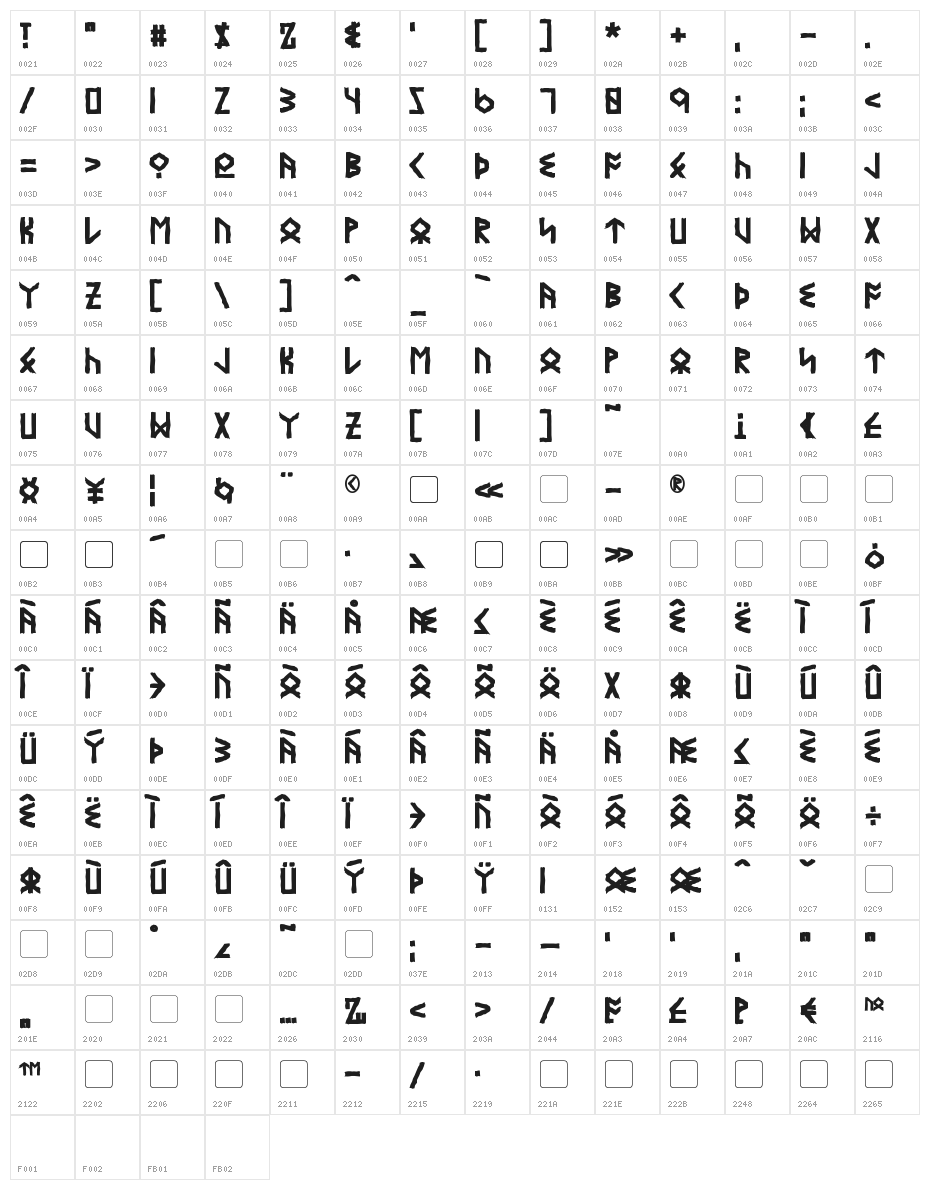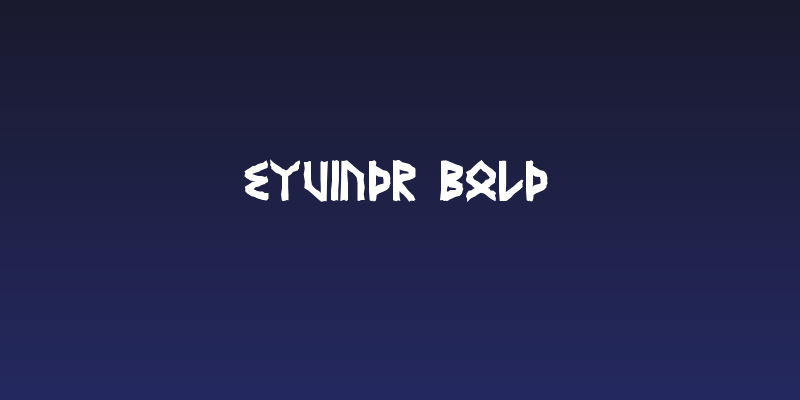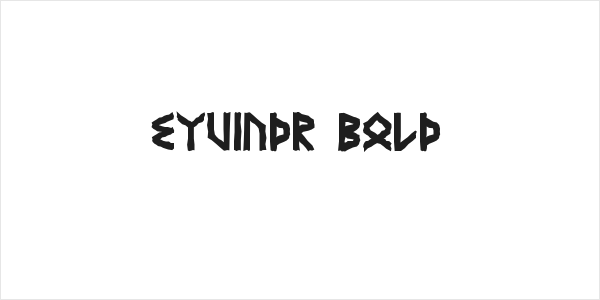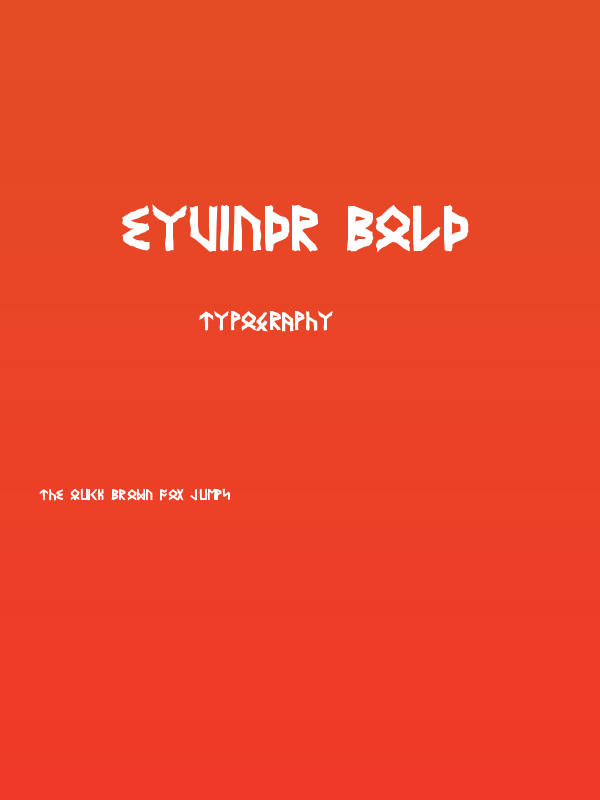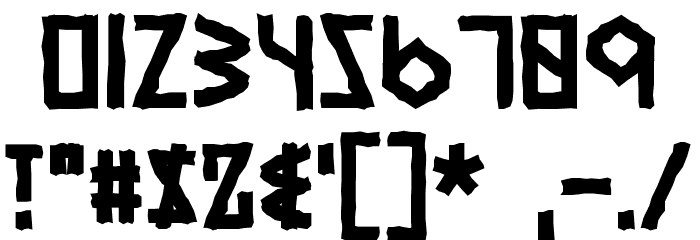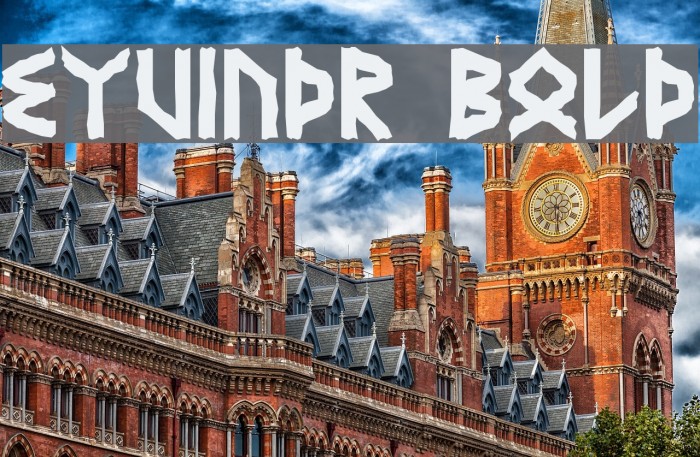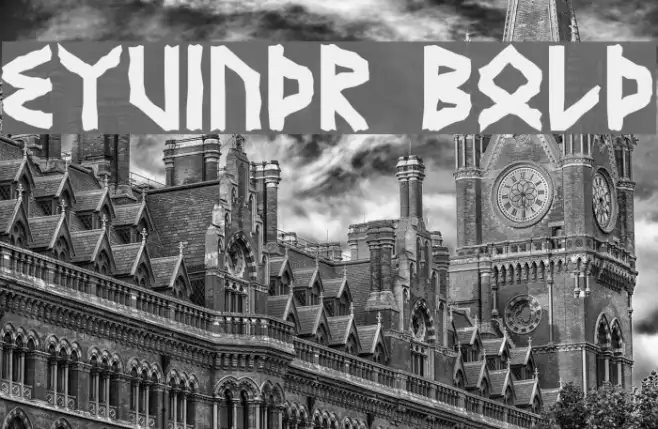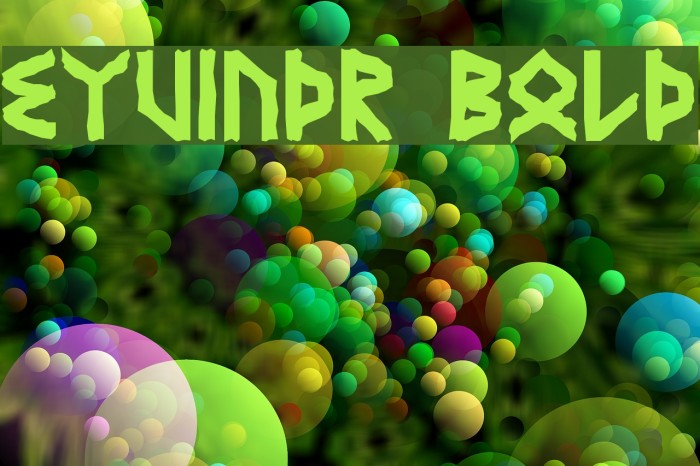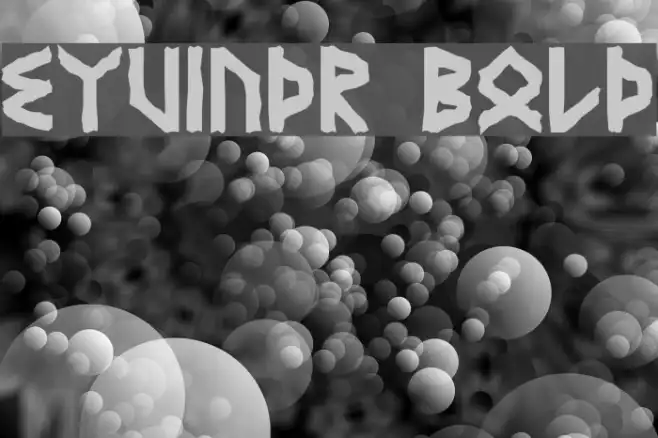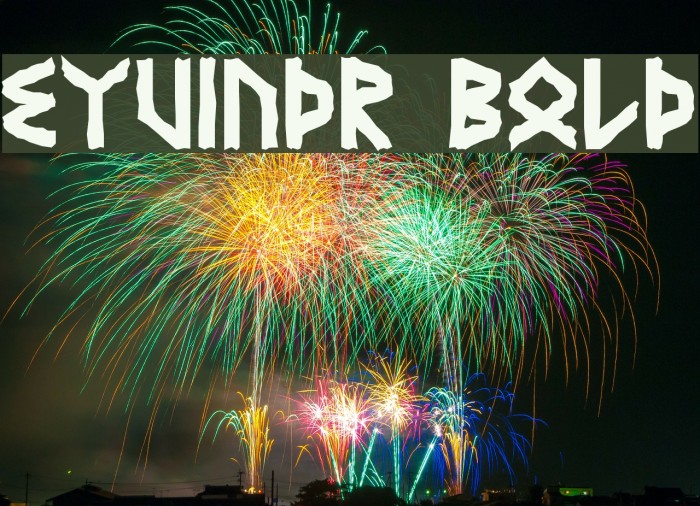
Eyvindr Bold Font
Eyvindr Bold Description
This font features a bold, angular design with a distinctly rugged and ancient appearance. The characters are heavily stylized, resembling runic or tribal carvings, which gives them a unique and striking look. The uppercase and lowercase letters maintain a consistent style, with sharp edges and a blocky form that suggests strength and solidity. The numbers and special characters follow the same aesthetic, ensuring uniformity across all glyphs. This font is ideal for projects that require a bold, impactful presence, such as branding for outdoor or adventure-themed products, or for use in fantasy or historical contexts.
| Proposed Projects | Ideal for adventure branding, fantasy themes, or historical contexts. |